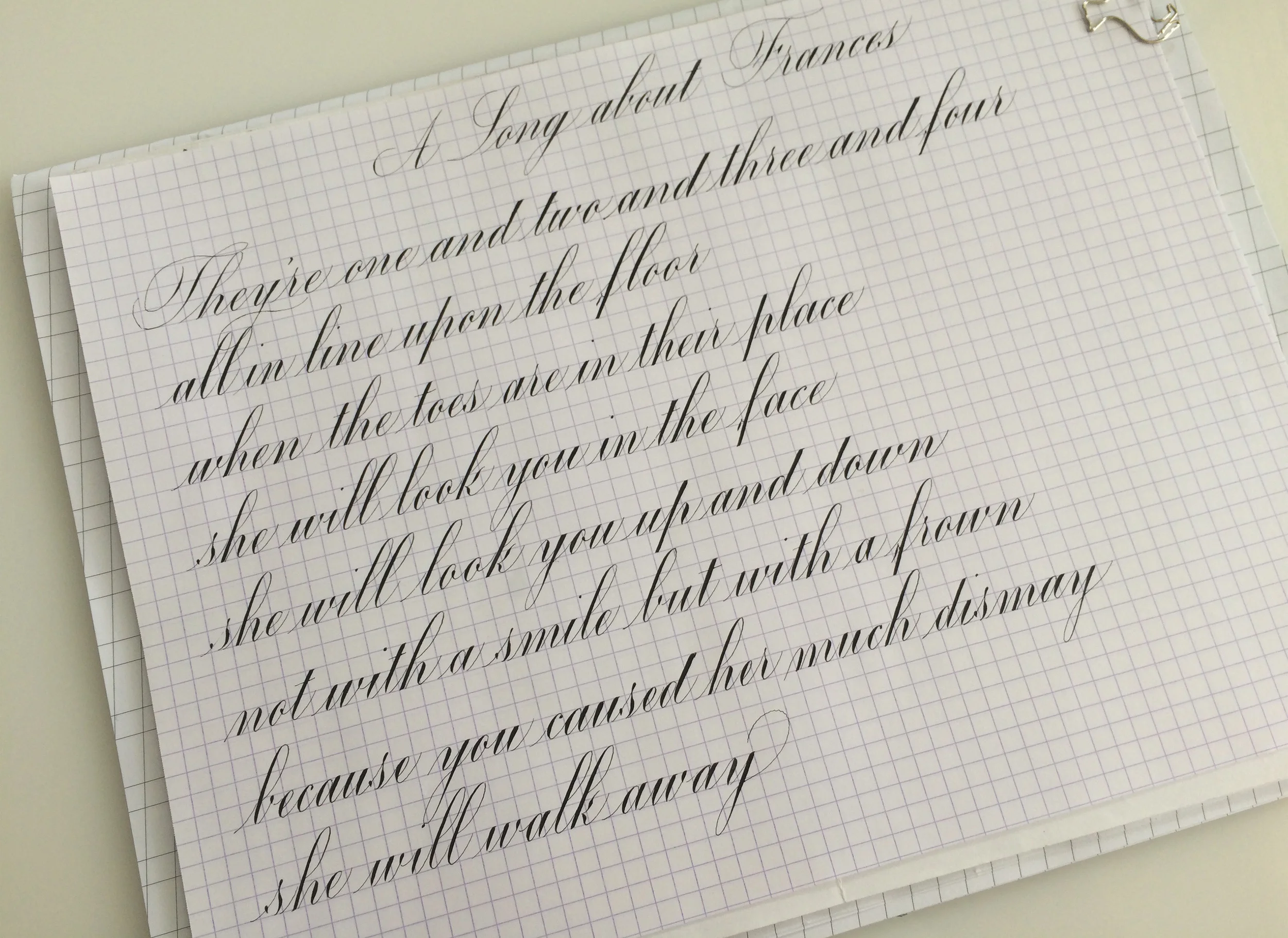
Practice and Progress
An early practice sheet when I started calligraphy in March 2014.
Same words written in June 2016.
Washington, D.C. — I find it very instructive to browse through my old practice sheets to see where I was before and where I am now. It's important to keep critical eyes on our work; otherwise, we can never improve. Even though the difference between my lettering then and now is encouraging, I can see that there is a lot more work to do. We can never be perfect, but we can strive to do our best. But of course, it's always good to remember to laugh and have fun along the way.
Song lyrics are meant to be sung to the Thomas the Train theme song. My nephew played the song incessantly, so it always got stuck in my head. My husband and I turned what could've been a pesky thing into something useful—lyrics about our cat Frances. Regretfully, this description of her personality is very apt.